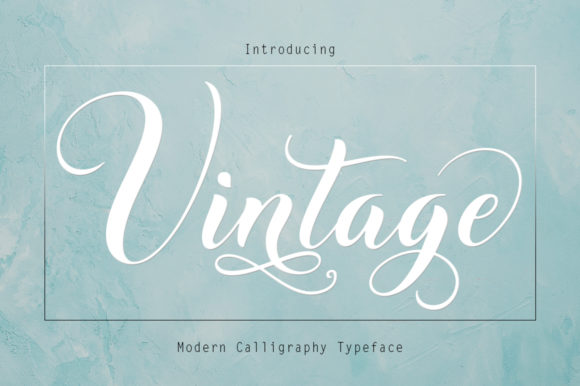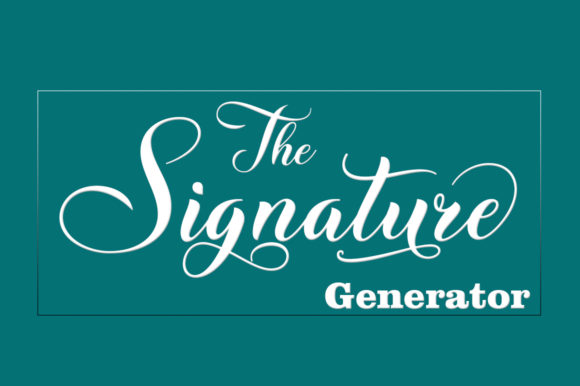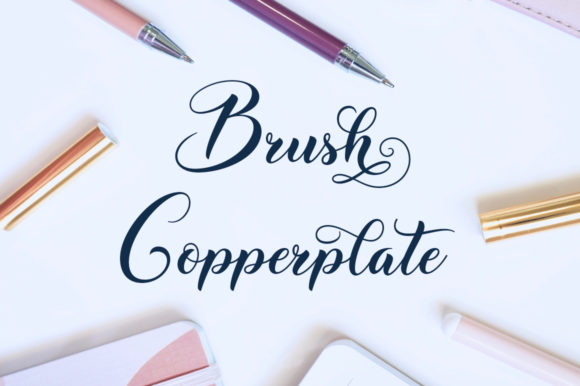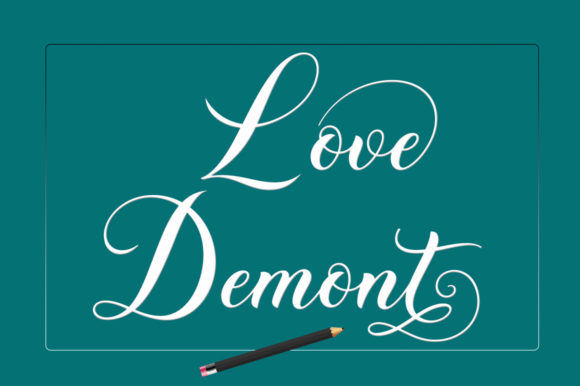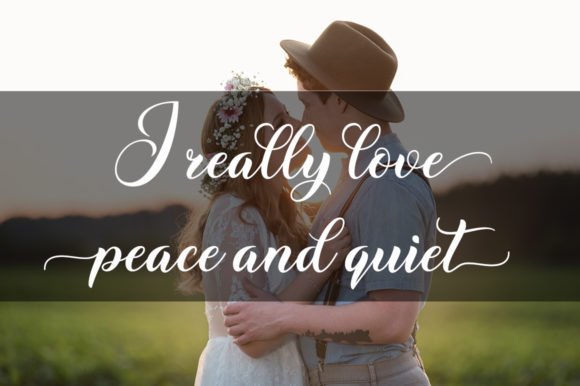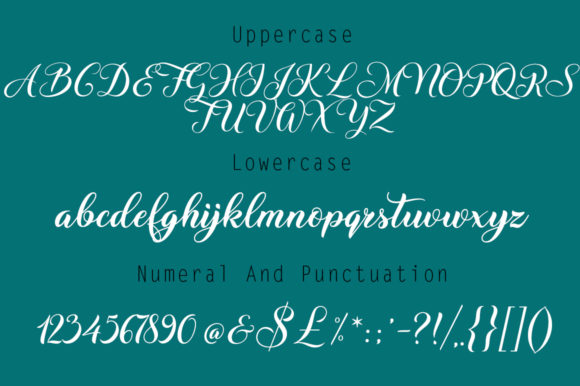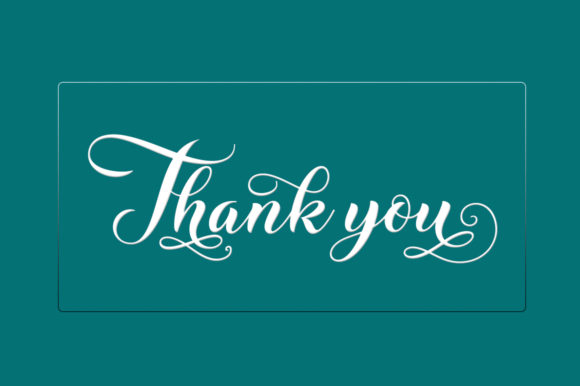
HomeScript FontsVintage Font Script Fonts Vintage Font FacebookXPinterestWhatsApp Vintage Font Poster 2 Vintage Font Poster 3 Vintage Font Poster 4 Vintage Font Poster 5 Vintage Font Poster 6 Vintage Font Poster 7 About Vintage Font Vintage is a truly wonderful modern calligraphy typeface. Fall in love with its playful swashes! DOWNLOAD ON CREATIVE FABRICAThis font is sold and delivered by Creative Fabrica. Font Canyon may earn a commission if you buy through this link. People also explored Churchward Tua Family Font Cataclysmo Southern Font Persephone Free Fresh Lemonade Font Galgadot Font Babies Font Ngopie Font Undertones Font 374 0 TagsVintage Font Previous articleAngelinatta FontNext articleCloudia Font LEAVE A REPLY Cancel reply Comment: Please enter your comment! Name:* Please enter your name here Email:* You have entered an incorrect email address! Please enter your email address here Website: Save my name, email, and website in this browser for the next time I comment. Personal Use Free Better Together Duo Personal Use Free Read more about this font Baby Love Personal Use Free Read more about this font Bintang Noela Personal Use Free Read more about this font Anggraini Personal Use Free Read more about this font BLOG Modern Sans-Serif Fonts That Brands Love in 2025 In 2025, modern sans-serif fonts remain a top choice for brands looking to project clarity, professionalism, and... How to Cut Any Font on Cricut: Convert a Font to SVG (Free) How to Install and Use Fonts on Windows, macOS, and Web Projects The 10 Best Handwriting Fonts to Add Personality to Your Designs